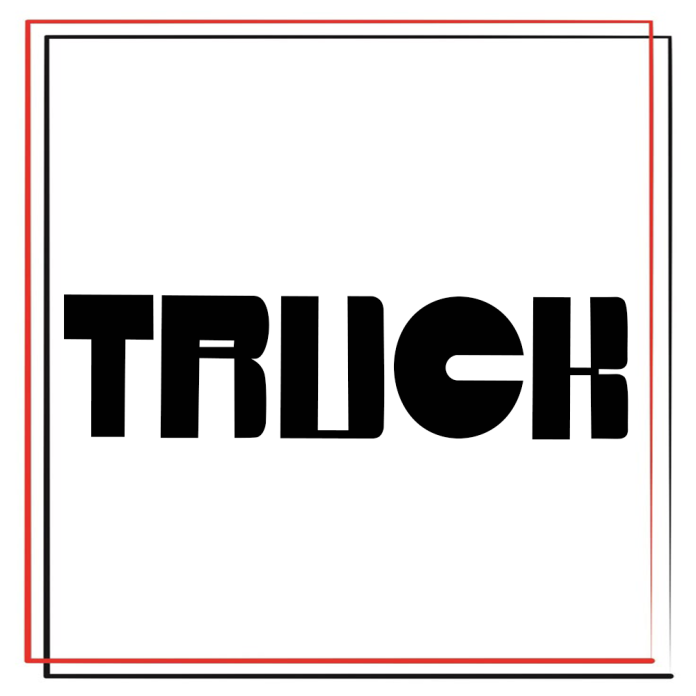
Truck Handwritten Font is a stylish and dainty script font. It is suitable for any projects such as : logos, branding projects, label, photography, watermark, special events, and all your other lovely projects that need a beautiful script taste.